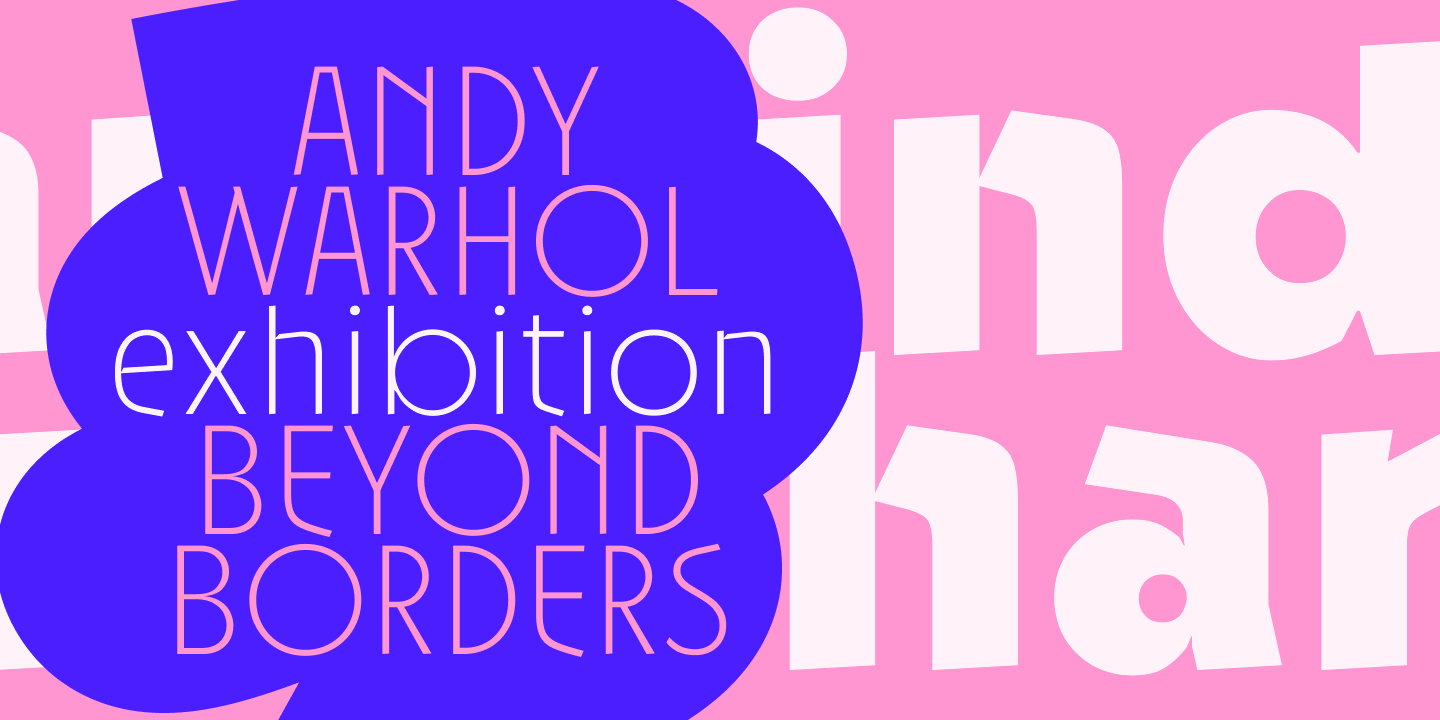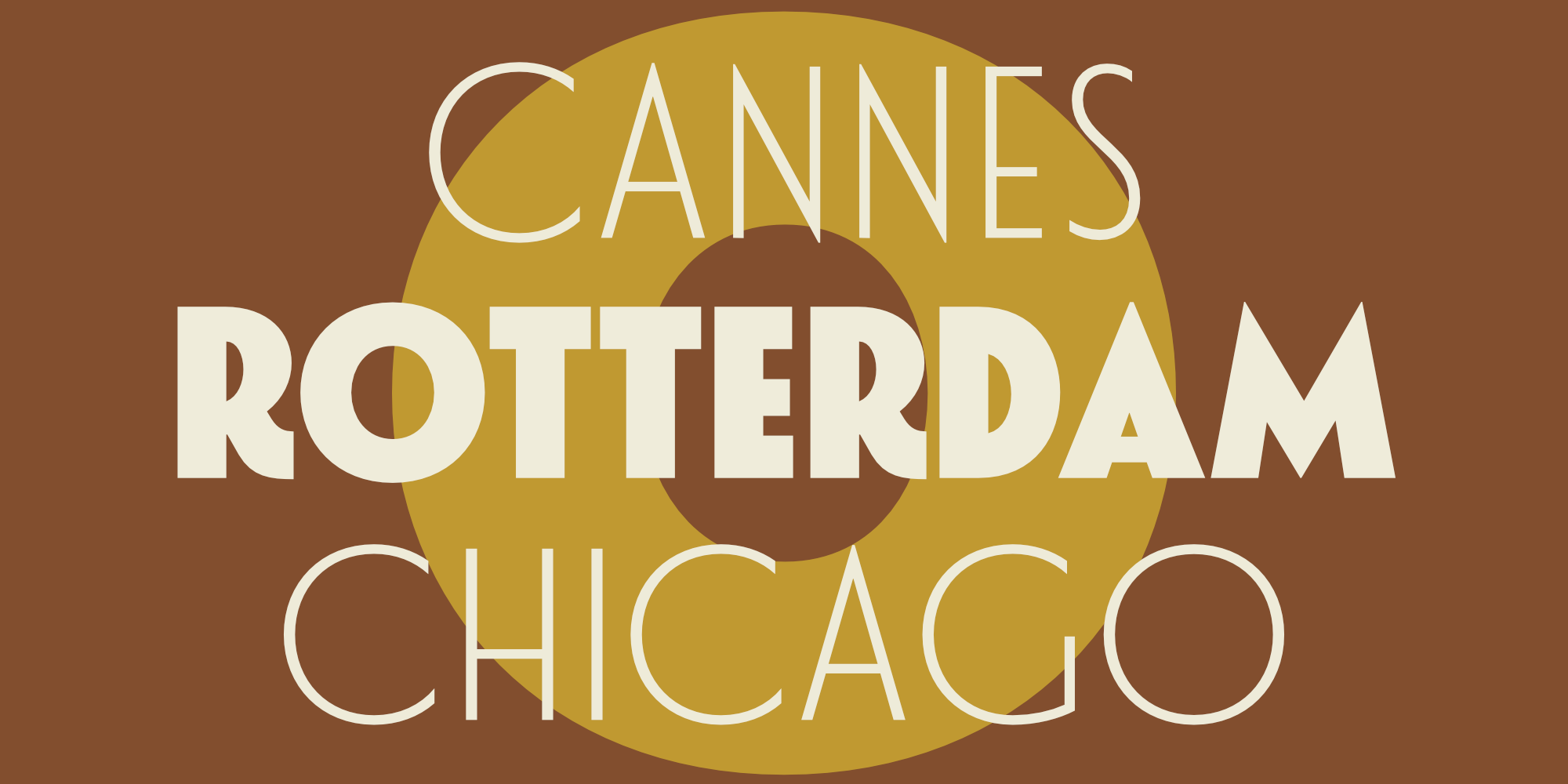
Onni is a contemporary geometric sans serif designed in Helsinki that balances precision with playful disruption. Built on a foundation of perfect circles and sharp angles, it explores the space where Swiss modernism meets experimental typography.
It comes in 10 weights, from hairline thin to bold, each designed to work independently or in dynamic combinations. The typeface features quirky, playful proportions with a distinctive mix of straight-edged rectangles and curved forms that create striking visual contrast. The lowercase "e" features a unique triangular cutout, while the swooping R tail and geometrically constructed numerals add distinctive personality. Designed with comprehensive OpenType features including extended language support, ligatures, stylistic alternates, tabular figures, and a full range of currency symbols and punctuation.
This experimental display font combines strict geometry with playful rotation—friendly yet bold, modern yet slightly chaotic. Perfectly suited for youth-oriented branding, tech startups, creative studio identities, editorial design, packaging, and any display use where personality matters more than traditional legibility. Onni delivers geometry with attitude—a typeface that refuses to be ignored